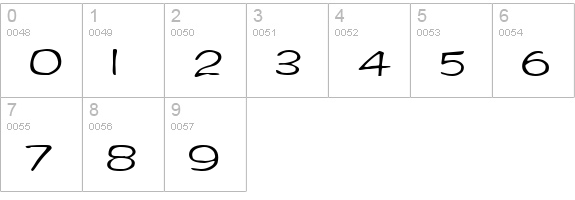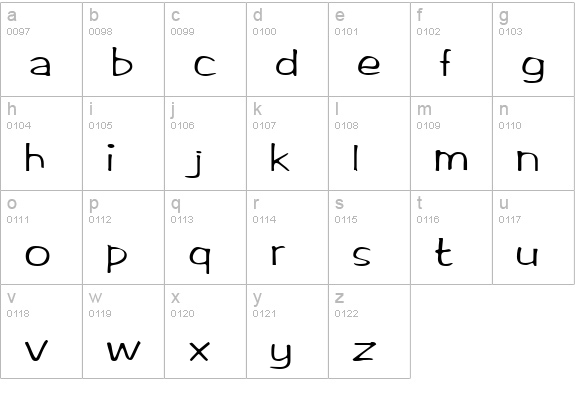
Garfield Font Details
Garfield font is a charming and playful typeface that exudes a sense of whimsy and fun. Its rounded edges and bold strokes give it a friendly and approachable appearance, perfect for adding a touch of lightheartedness to your designs. Whether you're creating a poster, logo, or greeting card, Garfield font is sure to bring a smile to your audience's face. The best part? Garfield font is completely free to download at FontsMarket.com. That's right, you can access this delightful font at no cost, making it an affordable and accessible option for all your creative projects. So why wait? Download Garfield font today and let your creativity shine with this playful and free typeface.